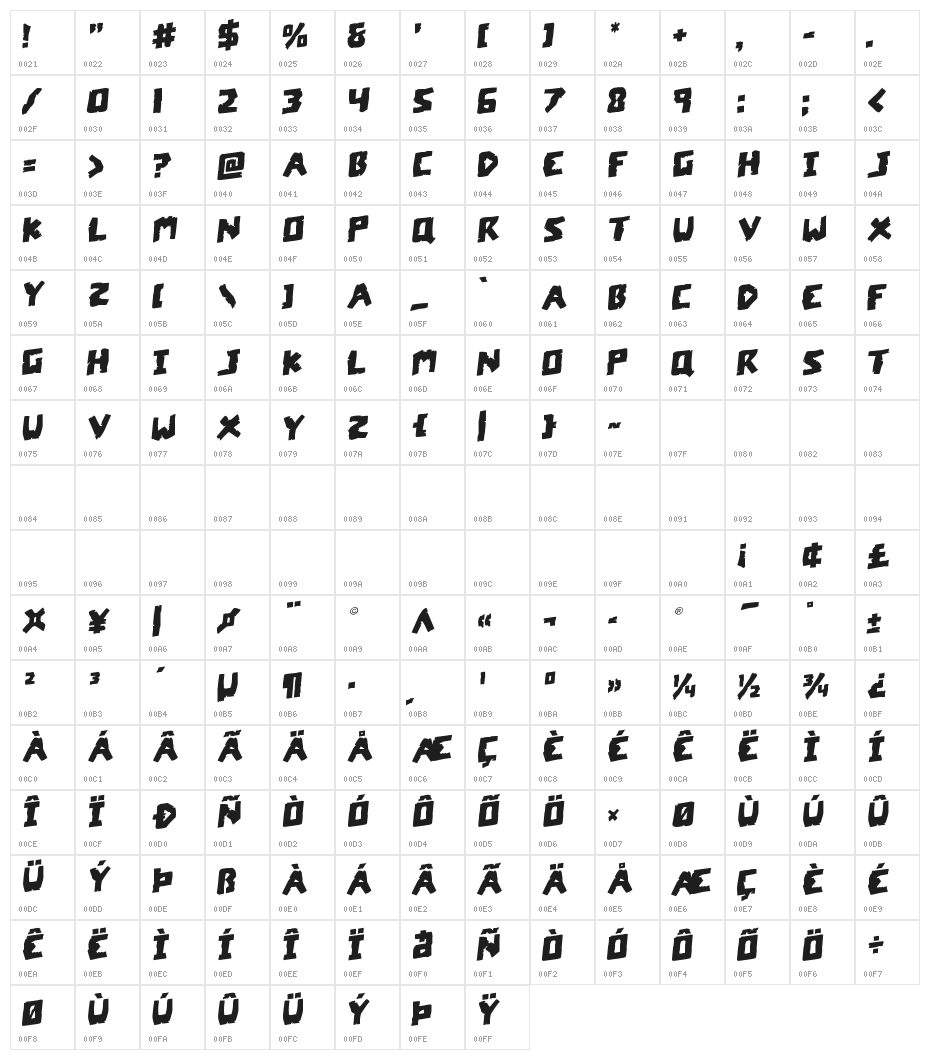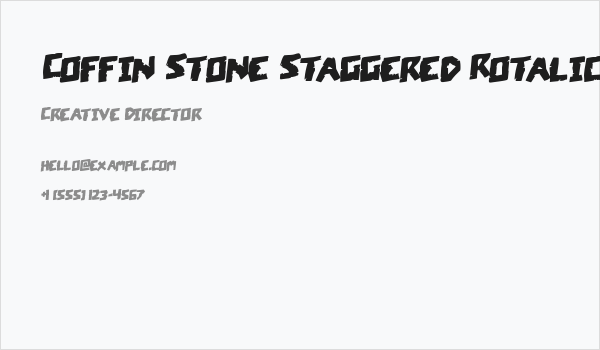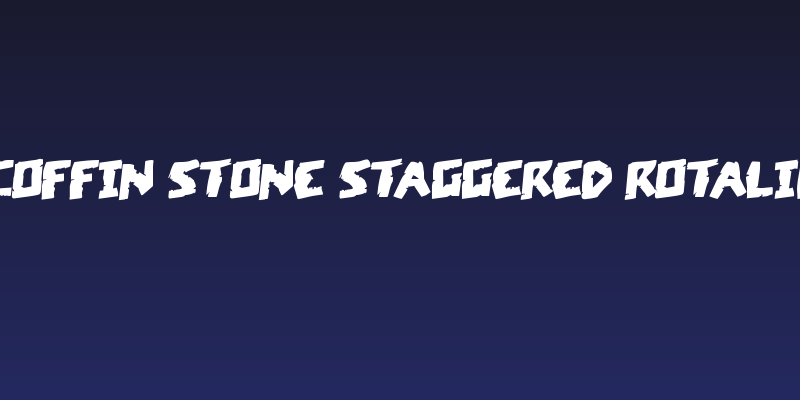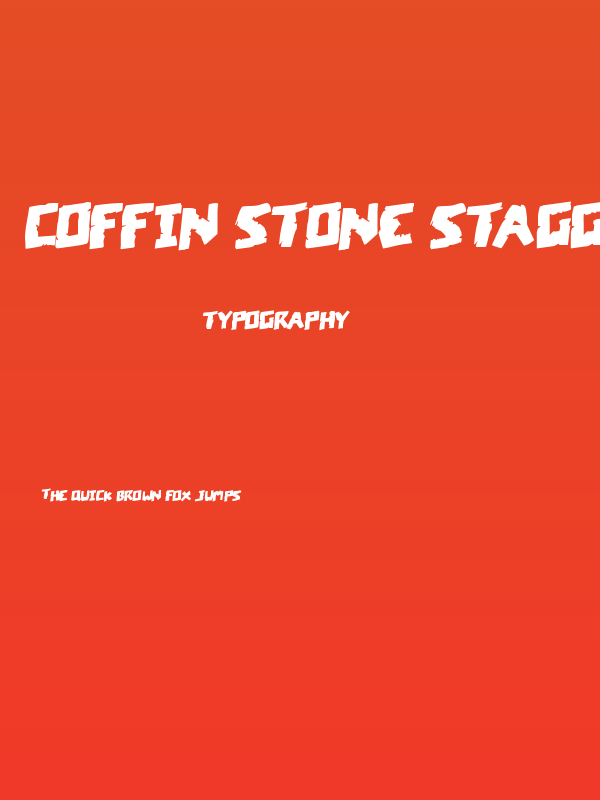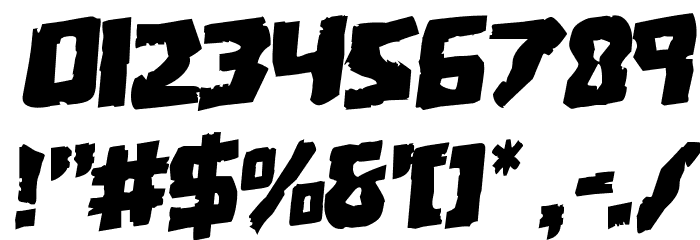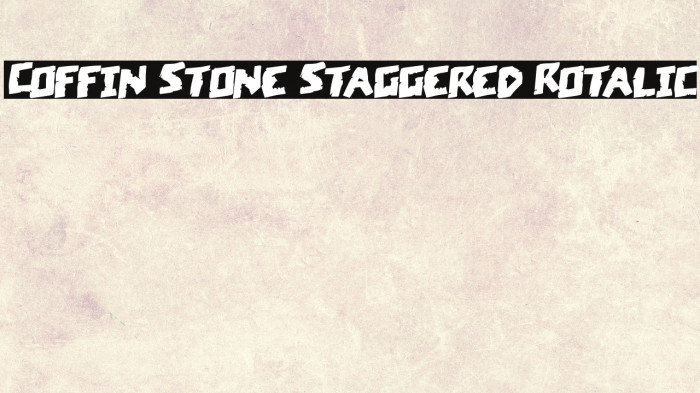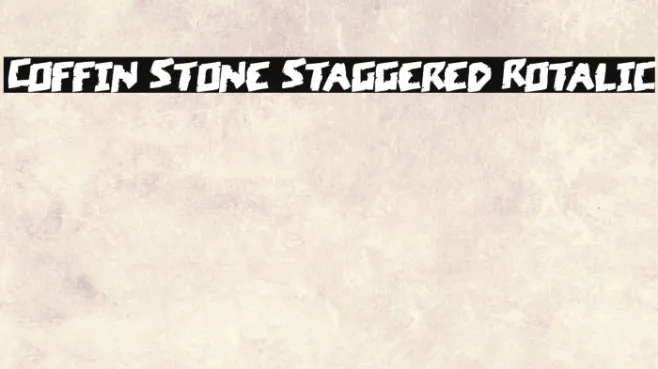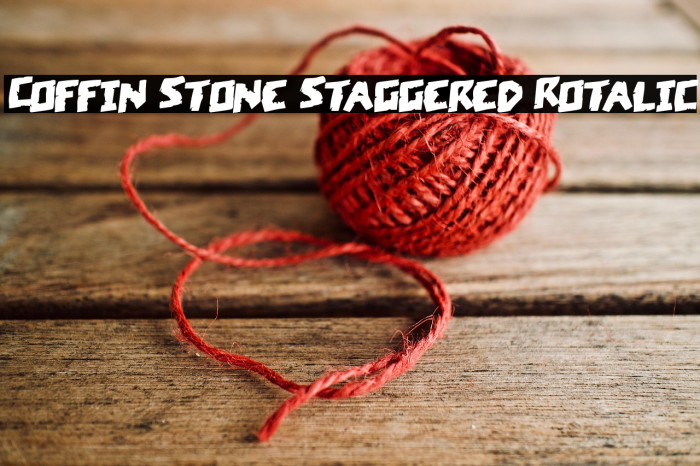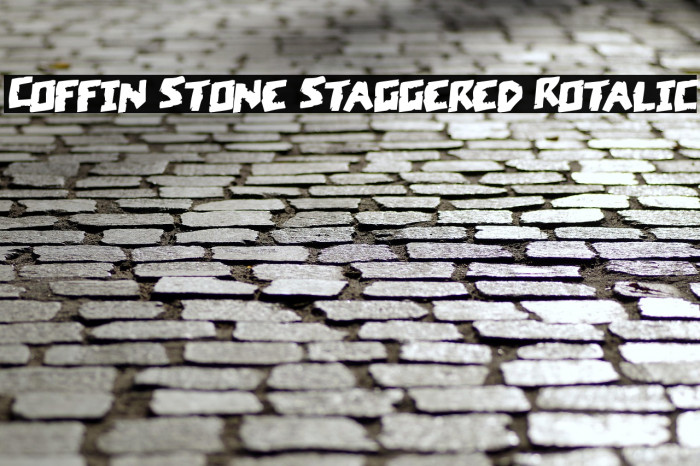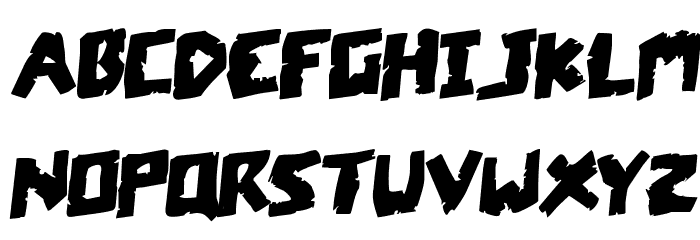
Coffin Stone Staggered Rotalic Font
Coffin Stone Staggered Rotalic Description
This font features a bold, jagged style with a dynamic and aggressive appearance. The characters are heavily stylized, with sharp edges and irregular shapes that create a sense of movement and energy. The uppercase and lowercase letters maintain a consistent design, emphasizing the font's unique aesthetic. Numbers and special characters are equally bold and distinctive, making them stand out. The overall impression is one of strength and intensity, suitable for projects that require a strong visual impact.